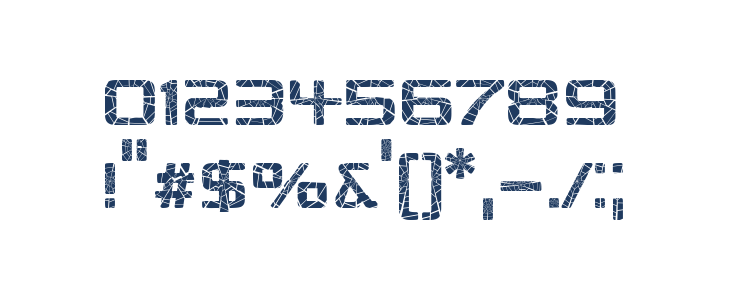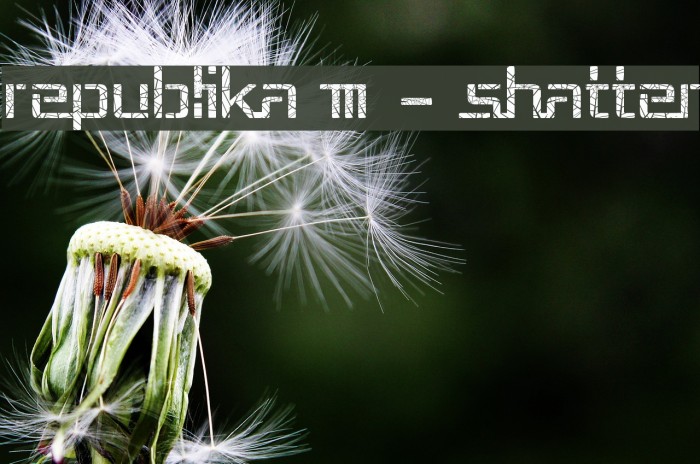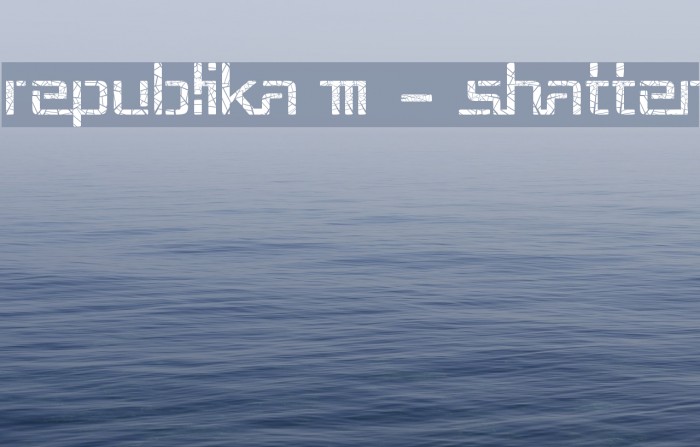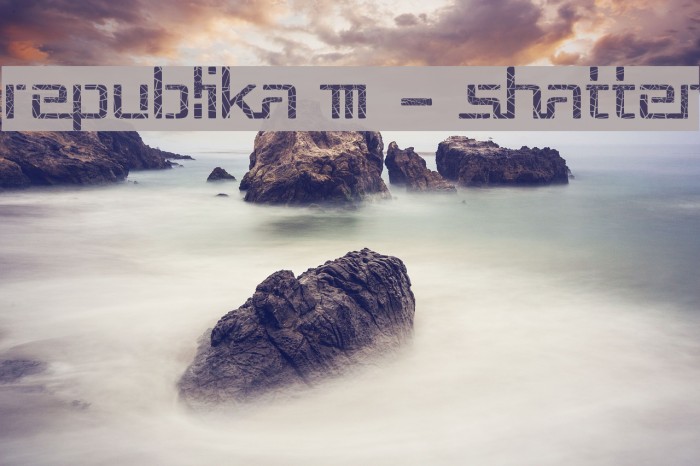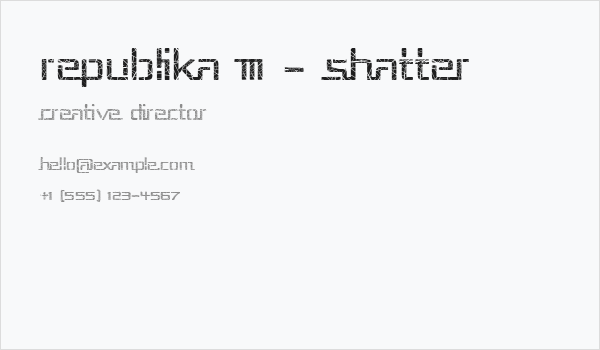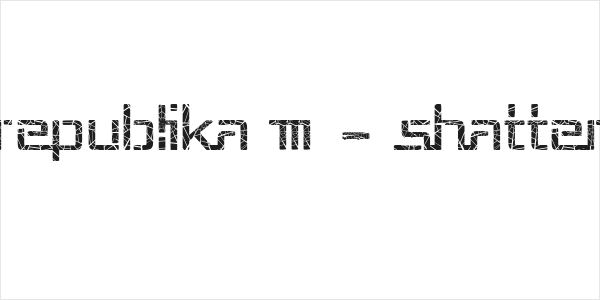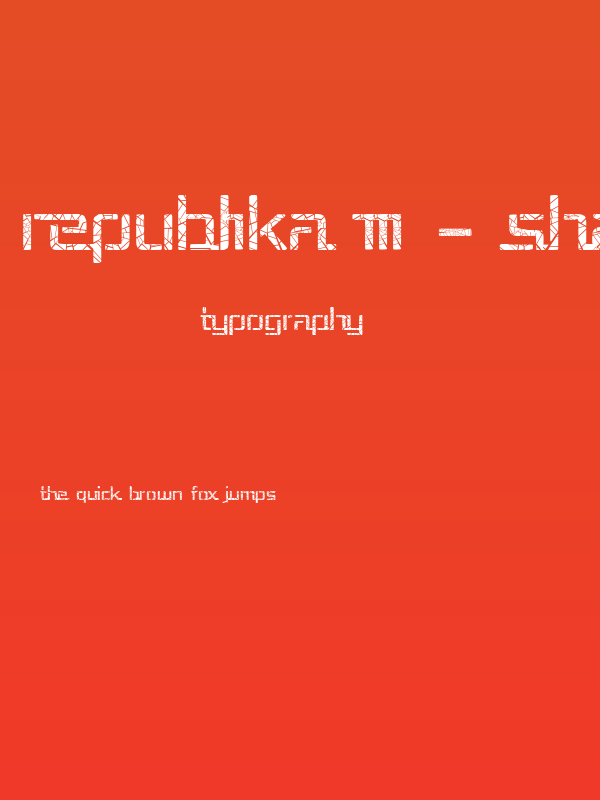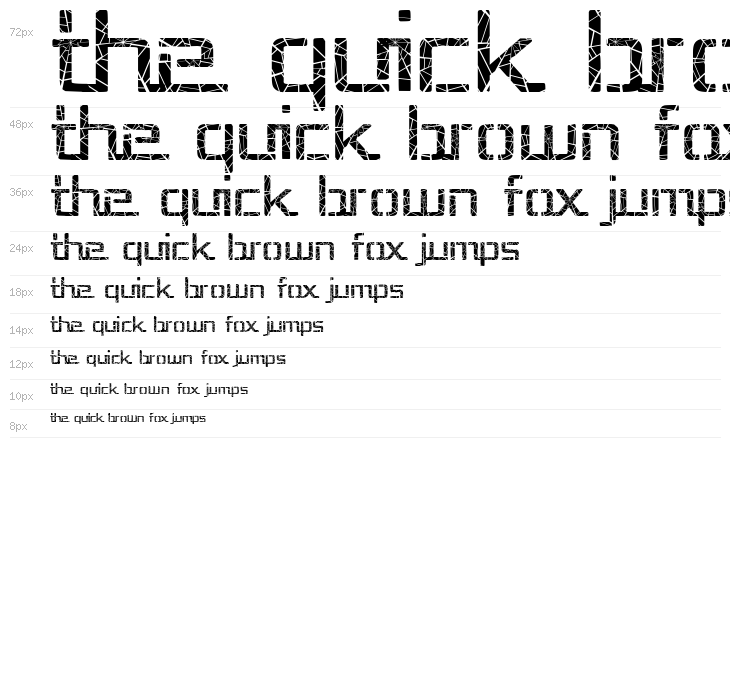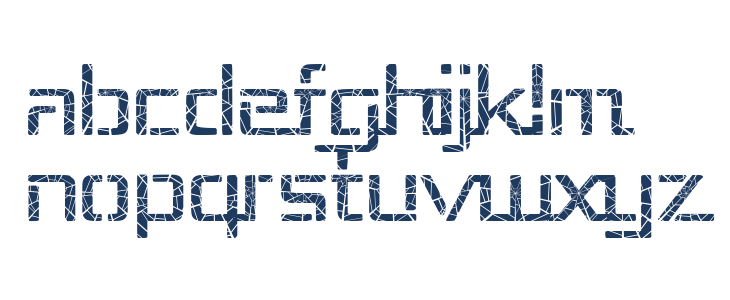
Republika III - Shatter Font
Republika III - Shatter Description
This font features a unique shattered glass effect, giving each character a fragmented and dynamic appearance. The geometric shapes within the letters create a sense of movement and energy, making it stand out as a bold and artistic choice. The uppercase and lowercase letters maintain a consistent style, with sharp angles and a modern aesthetic. Numbers and special characters follow the same design, ensuring a cohesive look across all text elements. The font's distinct style is ideal for projects that require a strong visual impact.
Proposed ProjectsIdeal for album covers, posters, branding, and any project needing a striking, modern look.